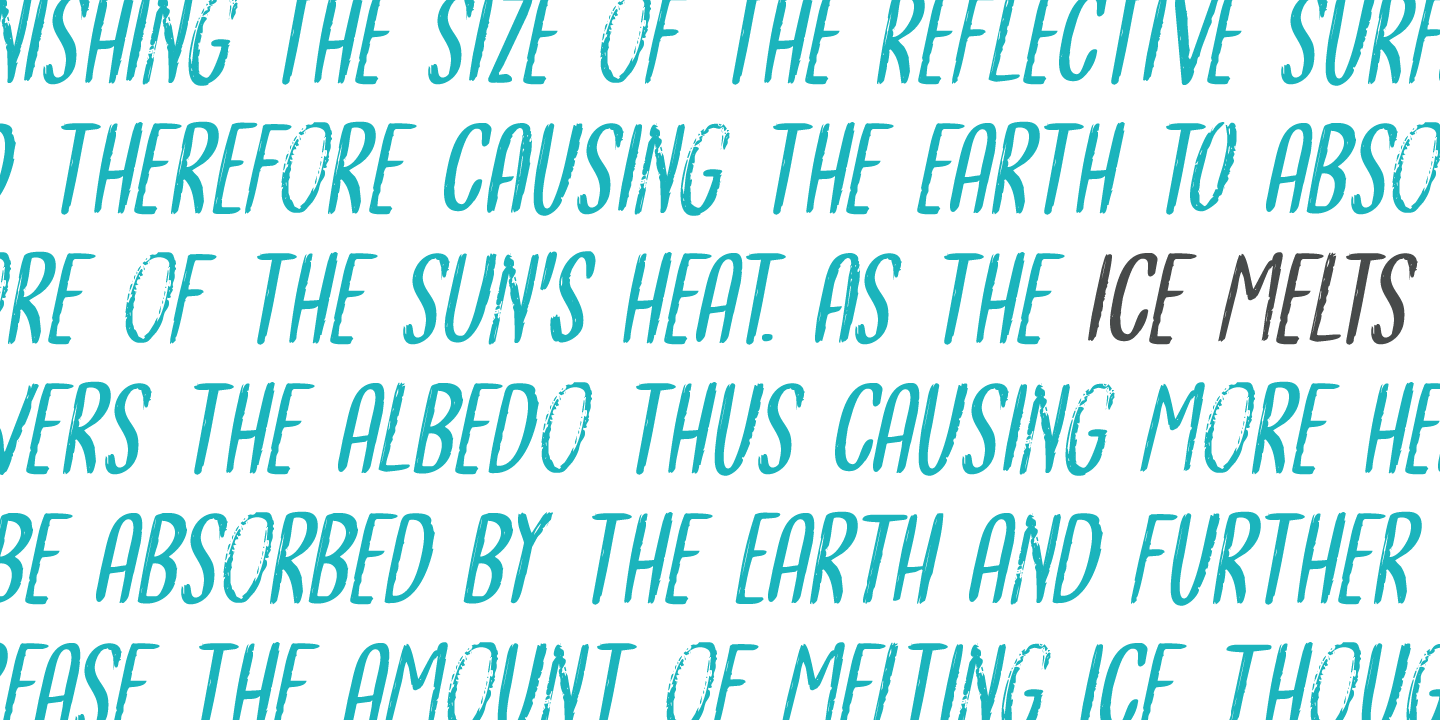
Bergie Seltzer Font is a delightfully unique and playful typeface, perfect for designs that aim to evoke a sense of quirky charm, retro whimsy, or a friendly, handcrafted feel. Imagine it bringing a bubbly and inviting touch to the branding of a craft beverage company, adding a cheerful element to a quirky product label, or providing a genuine, homemade look to invitations for a casual, fun event. Its often slightly irregular forms, rounded edges, and a hint of hand-drawn character make it ideal for creative digital content, informal advertisements, and any print materials where a sense of lightheartedness or artistic individuality is desired. From a nostalgic diner menu to lively social media graphics, this font infuses designs with personality and a memorable, joyful quality.
Why Bergie Seltzer Font is So Exciting
What makes Bergie Seltzer Font so exciting is its ability to convey a sense of innocent charm and approachable friendliness, often with a subtle nod to vintage aesthetics. It features letterforms that have a gentle bounce, a soft irregularity, or a distinctly personalized touch, giving it a unique and endearing personality that stands apart from more rigid typefaces. This isn't a stern or formal font; its power lies in its ability to evoke smiles, warmth, and a touch of playful imagination. It can make any text it's applied to feel more intimate and engaging, instantly drawing in the viewer with its amiable aesthetic. This distinct character is what truly sets Bergie Seltzer Font apart.
Bergie Seltzer Font Family
The Bergie Seltzer Font family typically focuses on delivering its unique, expressive style with charm and consistency. While it might not have an extensive range of traditional weights like a versatile sans-serif, you can generally expect to find a finely crafted Regular weight, often accompanied by bold versions or stylistic alternatives that further enhance its distinctive aesthetic. These variations are designed to provide flexibility within its specific style, allowing designers to create compelling headlines, subheadings, and decorative elements that maintain the font's endearing and charming appeal across different applications.